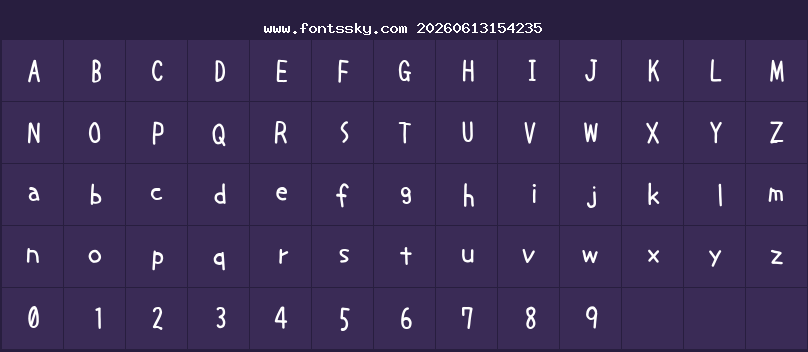
うずらフォント Preview
• Font Name: うずらフォント
• Font ID: うずらフォント
• Full Font Name: うずらフォント
• PostScript Name: uzura_font
About うずらフォント.ttf
うずらフォント.ttf is a modern, elegant sans-serif font designed for ultimate readability and visual harmony. Perfect for branding, headlines, web design, and print materials.